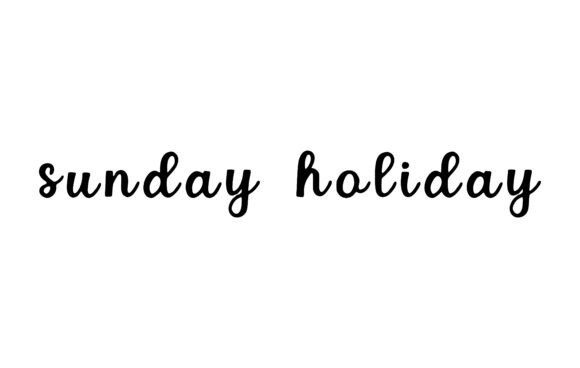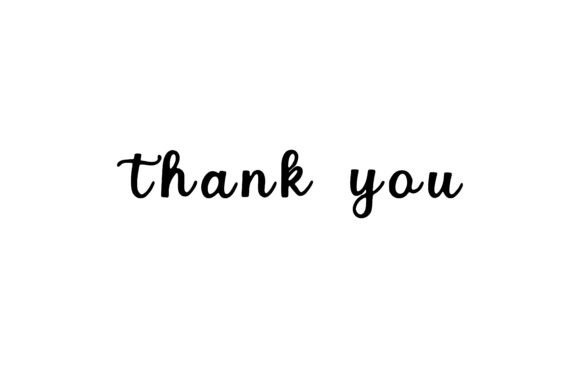
Craftily Font: Elevate Your Designs with a Touch of Romance
In the world of typography, a well-crafted font can make all the difference in bringing your creative ideas to life. Introducing Craftily Font, an authentic handwritten font that exudes a romantic touch, perfect for designers and crafters looking to add a personal and elegant flair to their projects.
The Perfect Blend of Legibility and Aesthetics
Craftily Font is expertly designed to strike the perfect balance between legibility and visual appeal. Its smooth, flowing lines and carefully crafted letterforms make it an excellent choice for both title and body text. Whether you’re working on a magazine headline, social media post, branding material, wedding invitation, or card, this font is sure to impress.
With Craftily Font, the design possibilities are endless. Its versatility and charm make it suitable for a wide range of projects, including:
- Magazine headlines and articles
- Blog posts and website content
Why Choose Craftily Font?
So, what sets Craftily Font apart from other fonts? Here are just a few reasons why designers and crafters are falling in love with this beautiful font:
- Authentic handwritten feel: Craftily Font boasts a genuine, handwritten look that’s sure to add a personal touch to your designs.
- Romantic and elegant: This font’s romantic and elegant vibe makes it perfect for projects that require a touch of sophistication.
- Highly legible: Craftily Font is designed to be easy to read, making it suitable for both title and body text.
- Versatile: This font can be used for a wide range of projects, from digital designs to print materials.
Tips for Using Craftily Font
To get the most out of Craftily Font, here are a few tips to keep in mind:
- Pair it with complementary fonts: Combine Craftily Font with other fonts that complement its style to create visually appealing typography.
- Experiment with colors and textures: Add depth and interest to your designs by experimenting with different colors and textures.
- Use it consistently: Use Craftily Font consistently throughout your design to create a cohesive look.
Craftily Font is a beautiful, authentic handwritten font that’s sure to elevate your designs to new heights. With its romantic touch, legibility, and versatility, this font is perfect for designers and crafters looking to add a personal and elegant flair to their projects. Whether you’re working on a magazine headline, social media post, or wedding invitation, Craftily Font is the perfect choice. So why wait? Download Craftily Font today and start creating stunning designs that capture the heart!